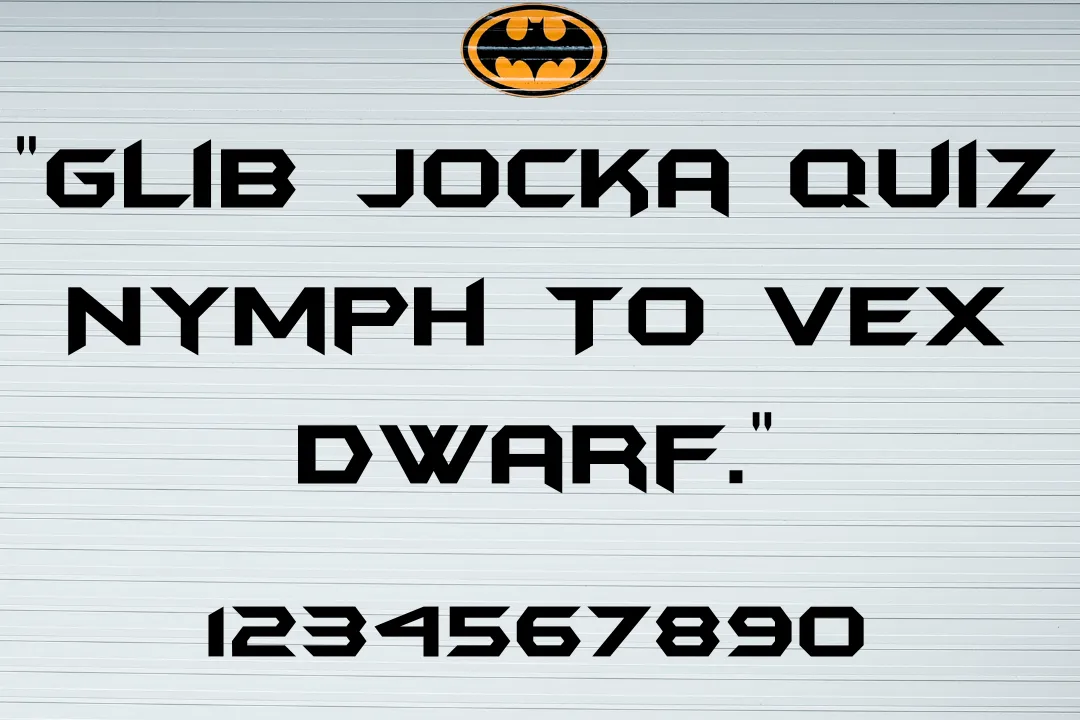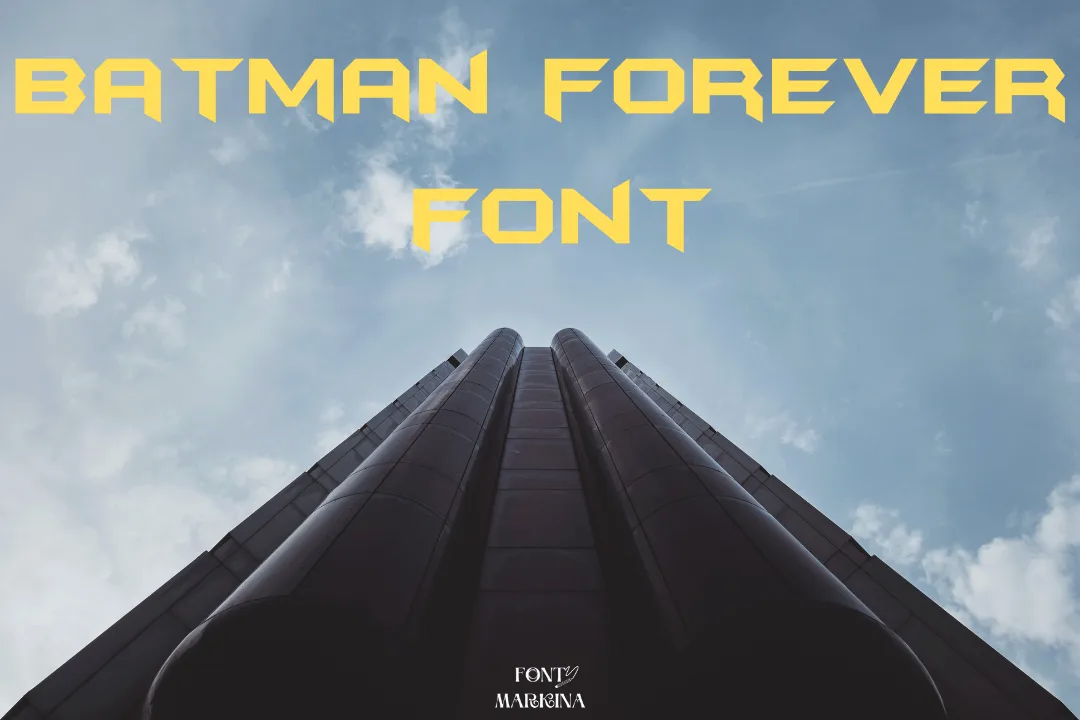
Batman Forever Font is designed on the base of the logo of a famous American movie. This movie font was released in 1995. The original developer of this family was Fontsly. This family is from the display family but we shift to logo fonts.
Due to its use for logos in movies, this typeface gets famous and popularity in the whole font market. This marvelous texture supports a lot of languages this is the reason for its uniqueness. Its copy-and-paste function adds a classic look to textual designs.
Who Can Use Batman Forever Font
In the designing markets, the use of this typeface is worth appreciating among all manufacturers and developers. It will meet the exact needs and requirements of users. Mostly, YouTubers remain in search of this family for their Art channels, and different types of thumbnails.
If you are an expert in designing then this family is for you to put in all of your designs and get fascinating results. You can also use this family in business sectors, certificates, company projects, designing clothes, and much more. It has a lot of uses, according to users’ needs.
Batman Forever Font View
| Designer | Fontsly |
| Style | Display |
What is the font used for Batman Forever?
It is a logo font and is used for the logo of a famous movie that was released in the state of America.